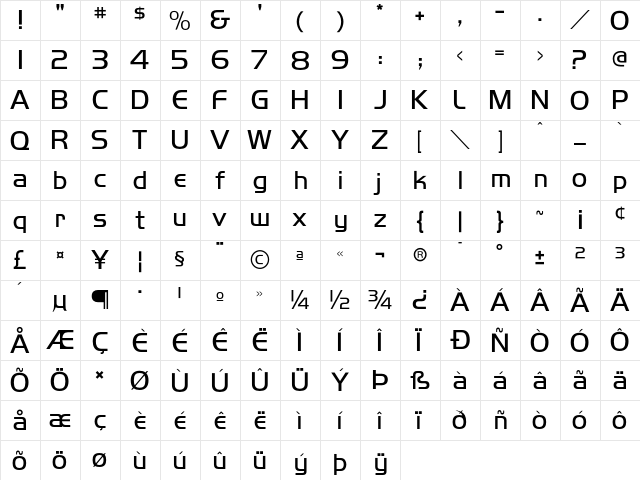
HighlandGothicLightFLF Regular Font Preview
HighlandGothicLightFLF Regular
HighlandGothicLightFLF Regular Font Details
Design Context for HighlandGothicLightFLF Typeface
HighlandGothicLightFLF has the quiet confidence of well-executed sans-serif typography: versatile, unobtrusive, and dependable at any size. The delicate stroke weight brings airiness and refinement to layouts.
A natural fit for high-end product packaging, luxury brand identities, and refined web typography.
Font Pairing: Pair HighlandGothicLightFLF with a medium or bold serif for headlines — the weight contrast creates an elegant, high-end feel.
Pro Tip: Use HighlandGothicLightFLF with generous tracking and line-height for the most luxurious effect — light sans-serifs reward spacious, considered layouts.